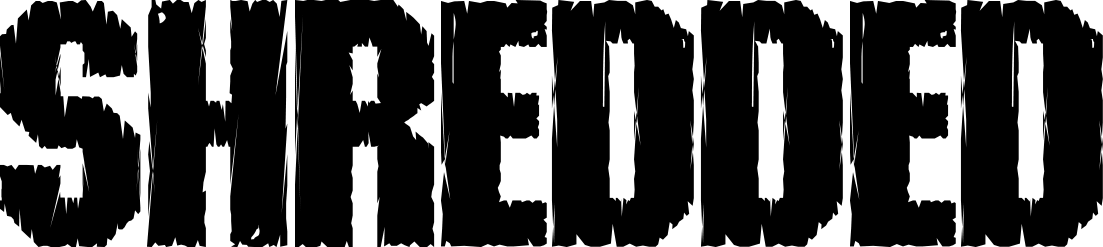
Shredded Font
Shredded is a grunge punk font with a bold and blocky look, conveying a serious, powerful, and punky vibe to the reader. You can use it for any punk music event flyer or poster, movie titles, personal blogs, school event…
Shredded is a grunge punk font with a bold and blocky look, conveying a serious, powerful, and punky vibe to the reader. You can use it for any punk music event flyer or poster, movie titles, personal blogs, school event flyers and banners, and Halloween designs.
This free punk font is an all-caps one and its punctuational set is lacking a few characters.